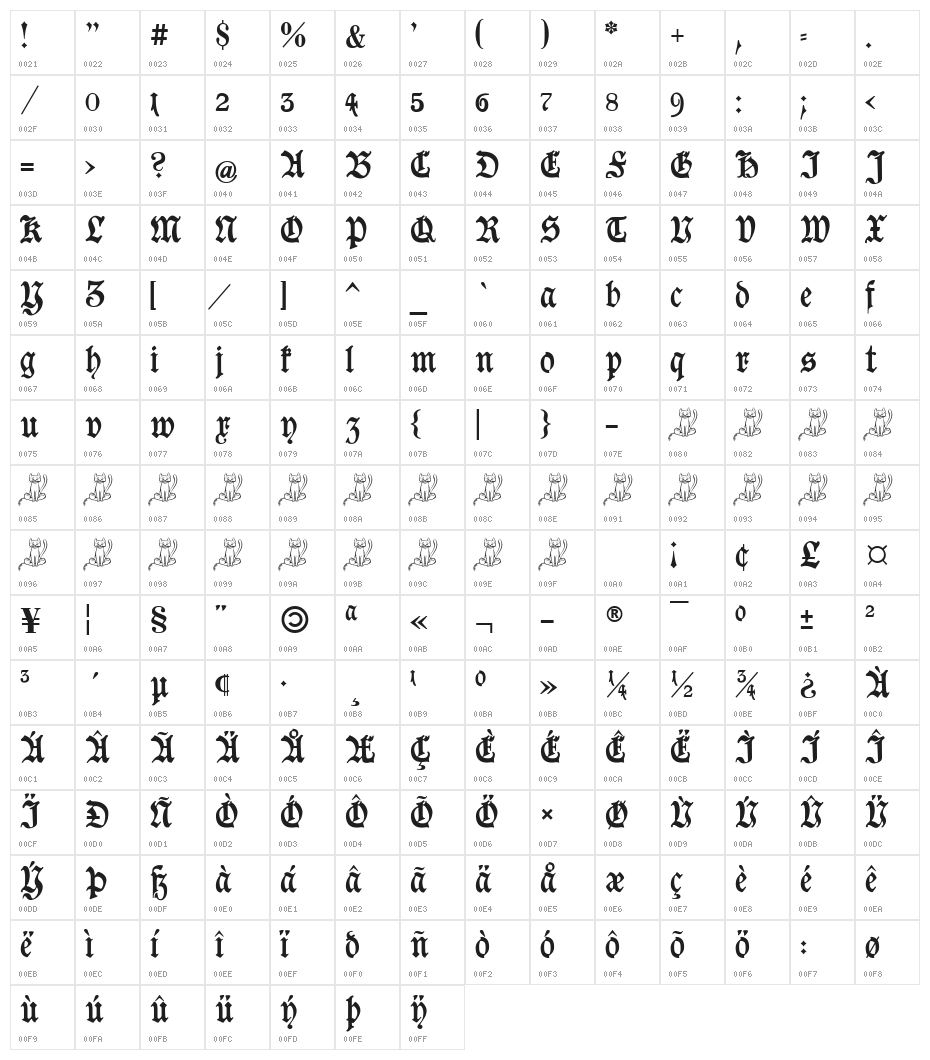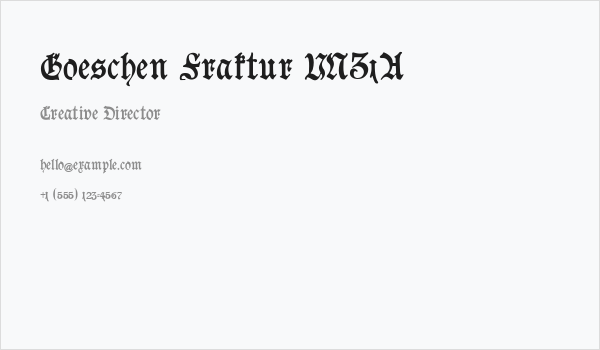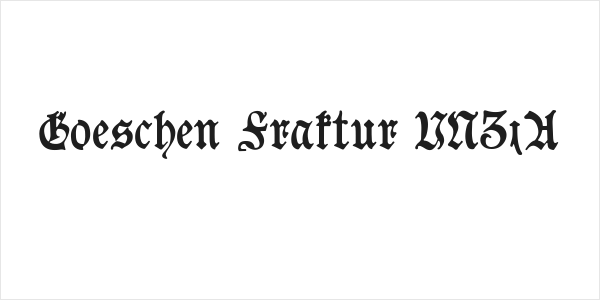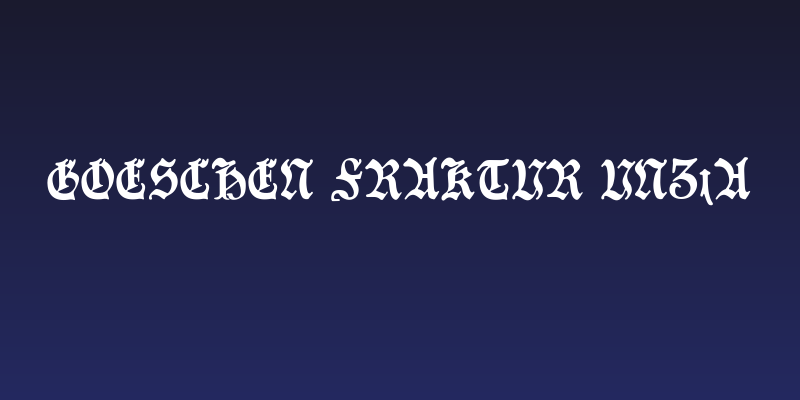
Goeschen Fraktur UNZ1A Font
Goeschen Fraktur UNZ1A Description
This font exhibits a traditional blackletter style, characterized by its intricate and ornate letterforms. The uppercase letters are bold and angular, with sharp serifs and a distinct medieval aesthetic. The lowercase letters maintain the same decorative style, featuring elaborate curves and flourishes. The numerals are consistent with the overall design, presenting a unique blend of elegance and complexity. Special characters are equally stylized, adding to the font's cohesive appearance. This typeface is reminiscent of historical manuscripts and old-world typography, making it suitable for projects that require a touch of vintage charm.
| Proposed Projects | Ideal for historical documents, wedding invitations, book covers, and branding that requires a vintage or gothic touch. |